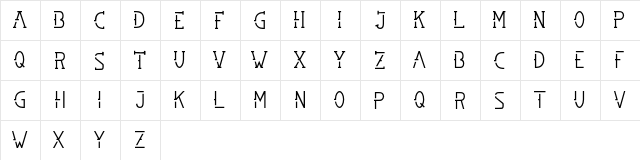
SMBRN Stencil
| Style | Stencil |
| Foundry | Aldi Hendarto |
| Designer | Aldi Hendarto |
Design Context for SMBRN Typeface
SMBRN has the rough pragmatism of spray-painted stencil signage, adding a raw, street-level authenticity to designs.
Ideal for industrial branding, streetwear, military-adjacent aesthetics, and urban signage projects.
Pro Tip: Pair SMBRN with raw, utilitarian design elements — exposed concrete textures, flat colour, and minimal ornamentation suit it well.